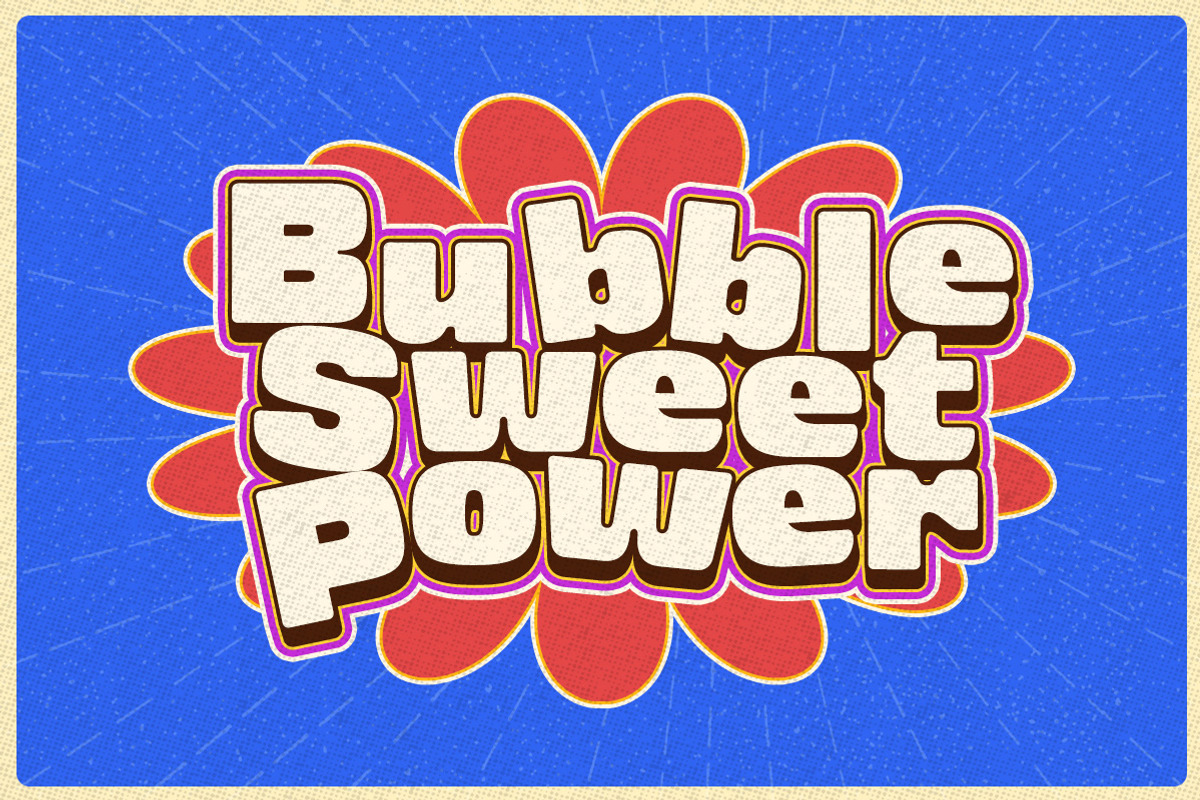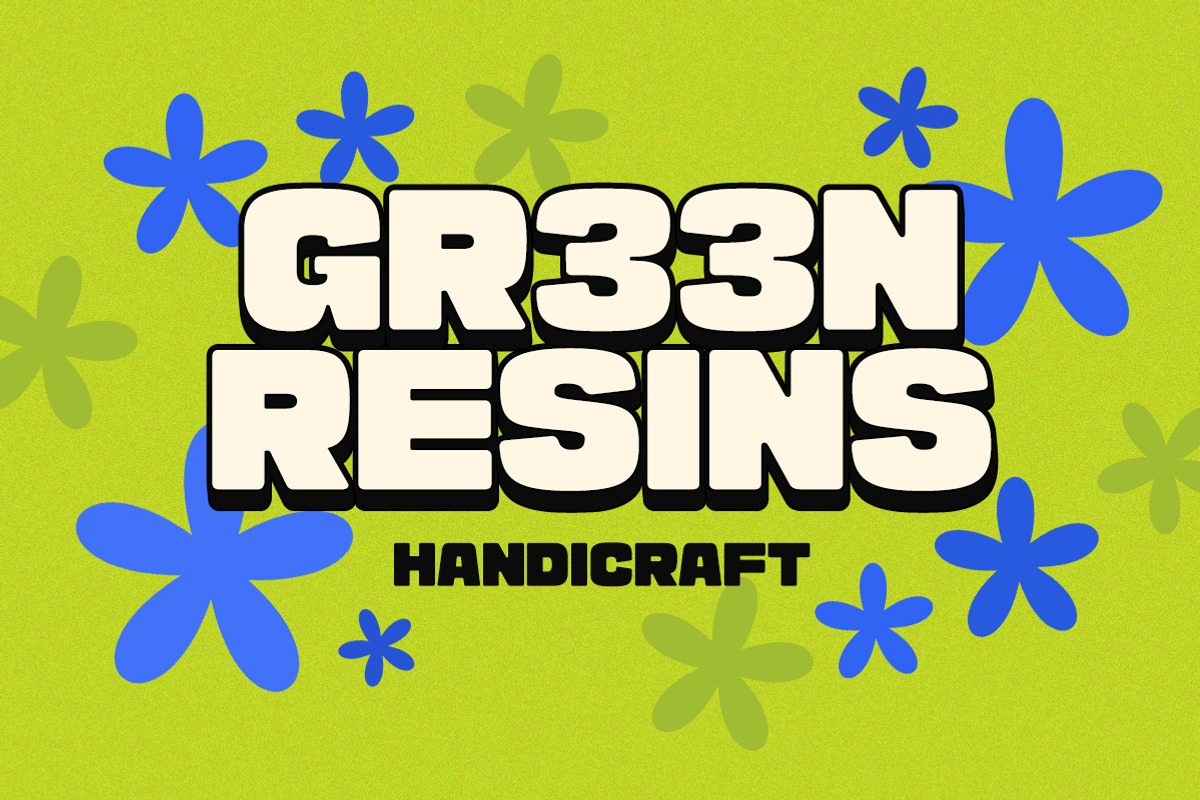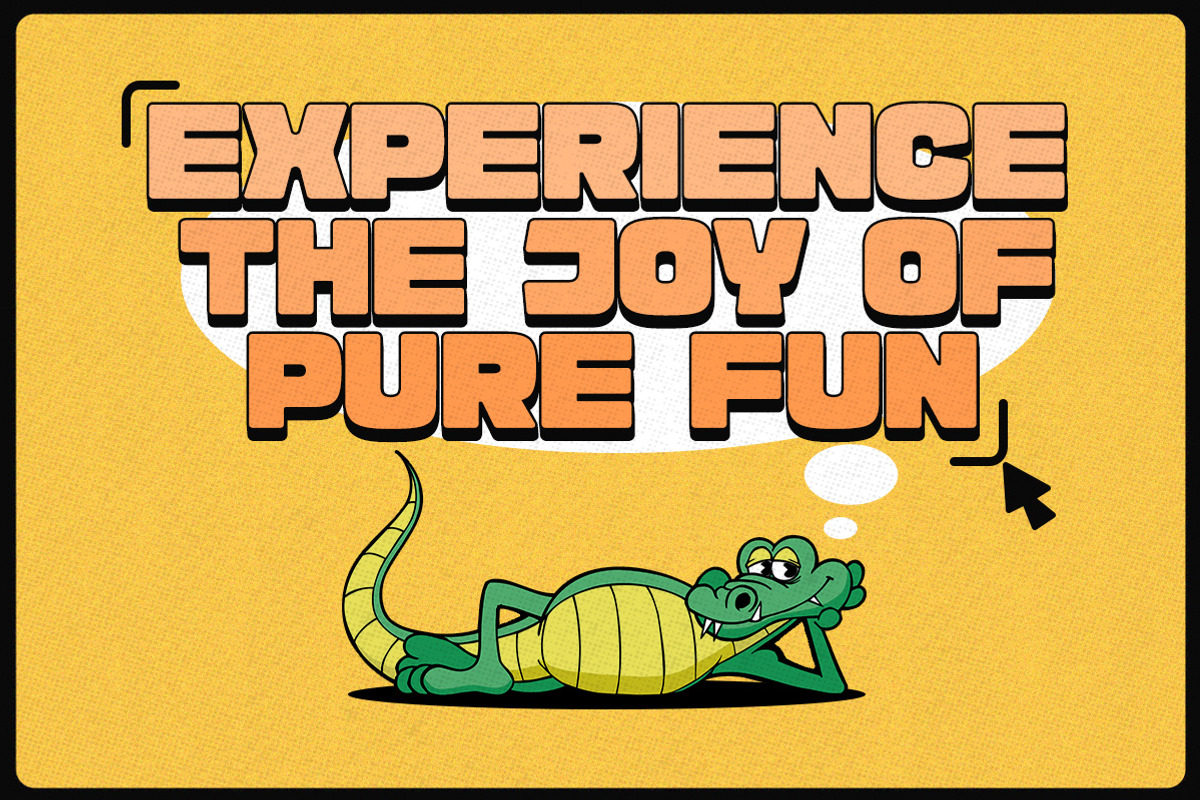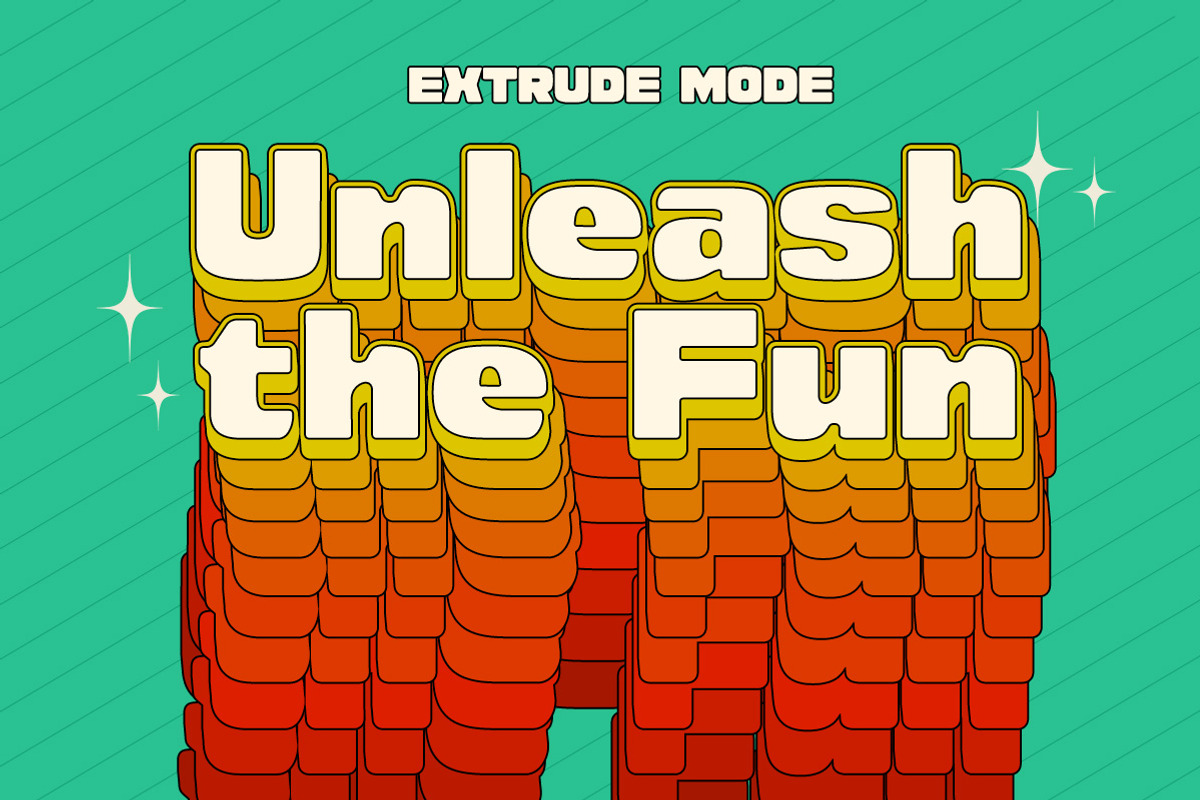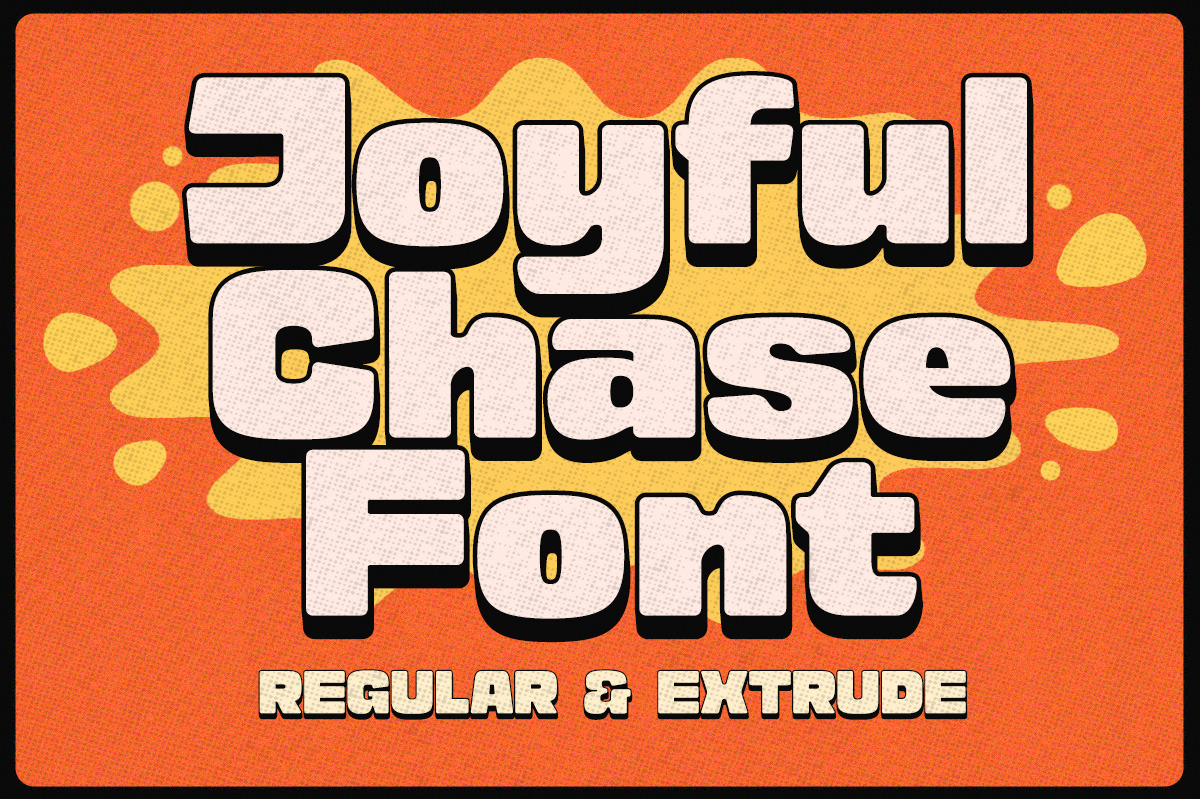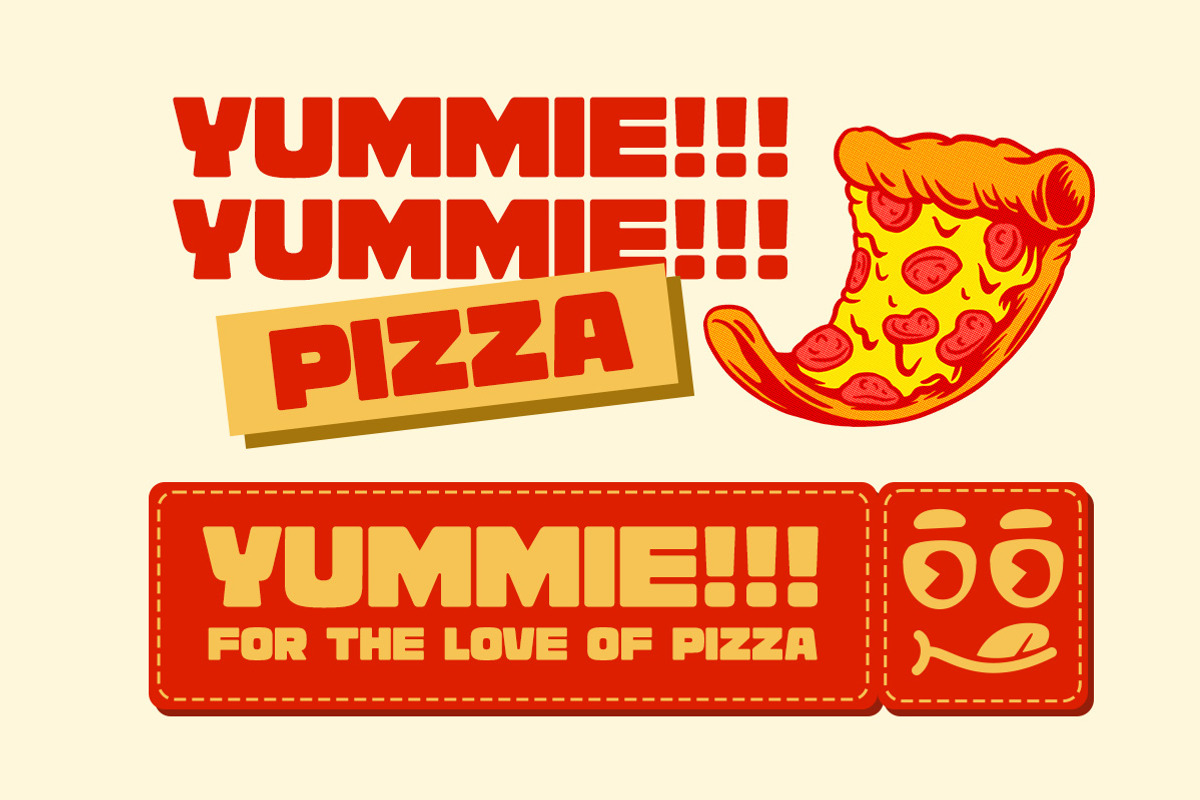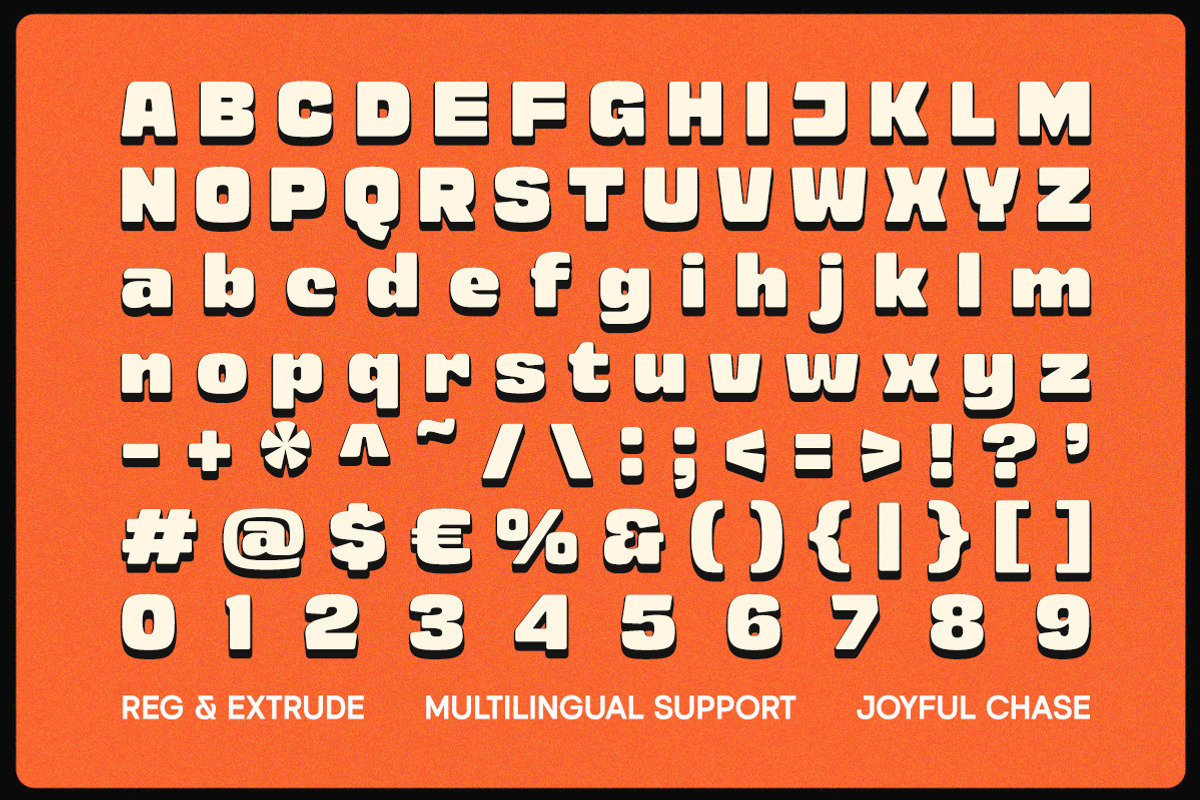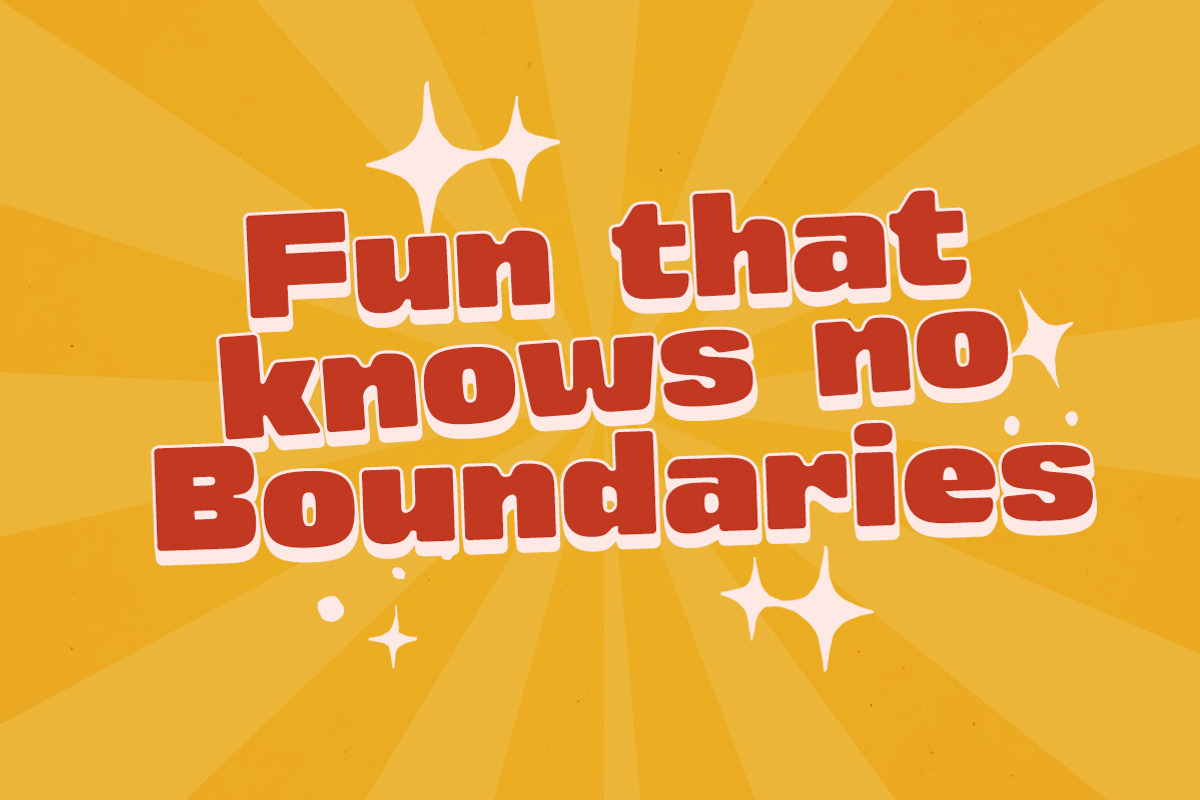
Joyful Chase - Playful Display Font
Joyful Chase is a display font that effortlessly combines playfulness and classic charm. It comes with extrude style, this option adds depth and dimension to your text, creating a visually striking effect that demands attention. This letterforms bring a sense of fun and excitement to your designs, making it ideal for children's books, cheerful branding, and creative projects that seek to inspire happiness and wonder.